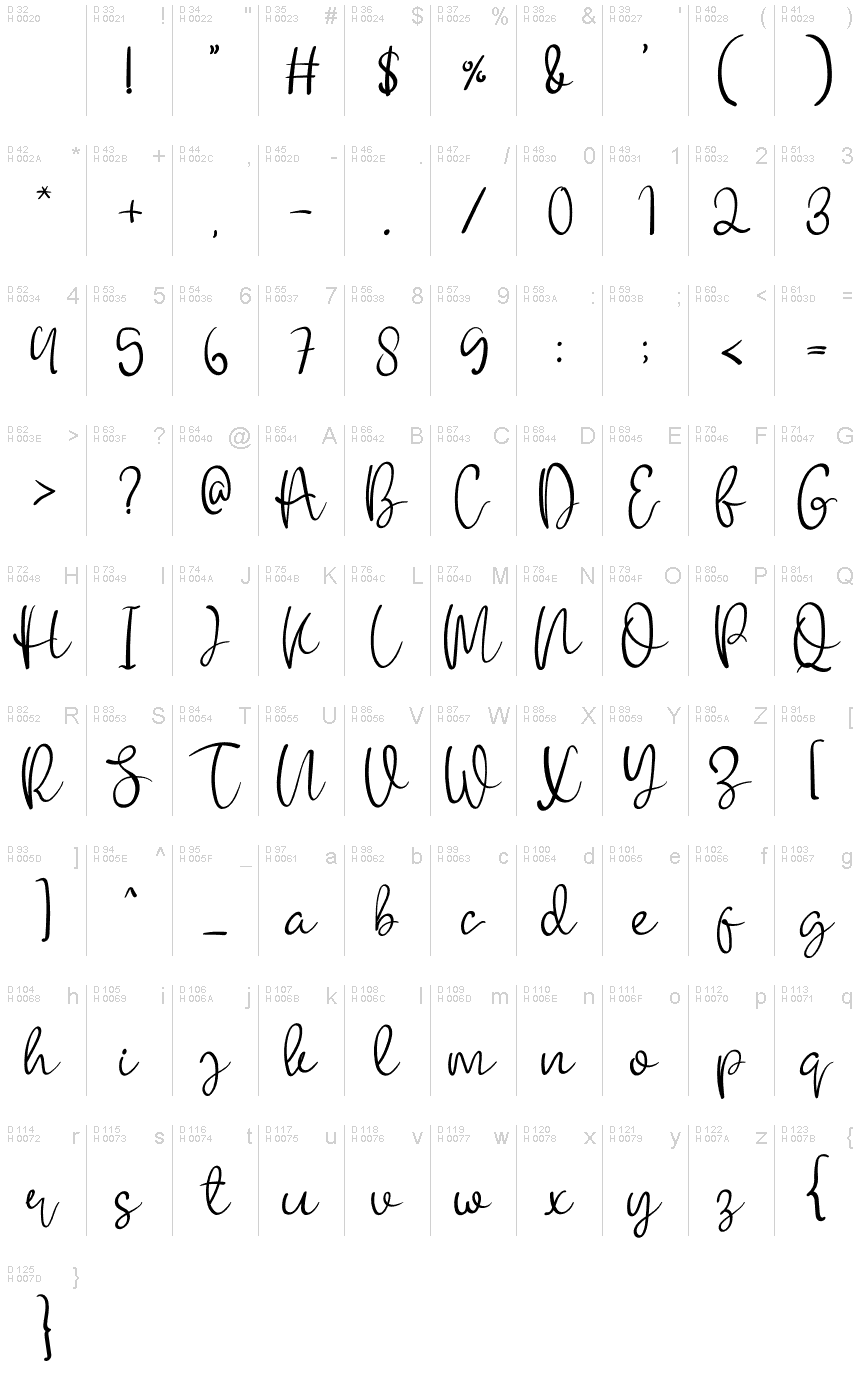
Watermellon
Watermellon is a whimsical handwritten font designed by Belina Studio. This light weight typeface exudes fun and playfulness, perfect for a variety of creative projects. Whether you're designing invitations for a summer picnic, creating graphics for a children's book, or adding a touch of charm to your social media posts, Watermellon will add the perfect touch of personality and flair. Its flowing lines and natural curves make it easy to read while still maintaining its handwritten feel. With Watermellon, your designs will stand out from the rest with its unique and charming style.